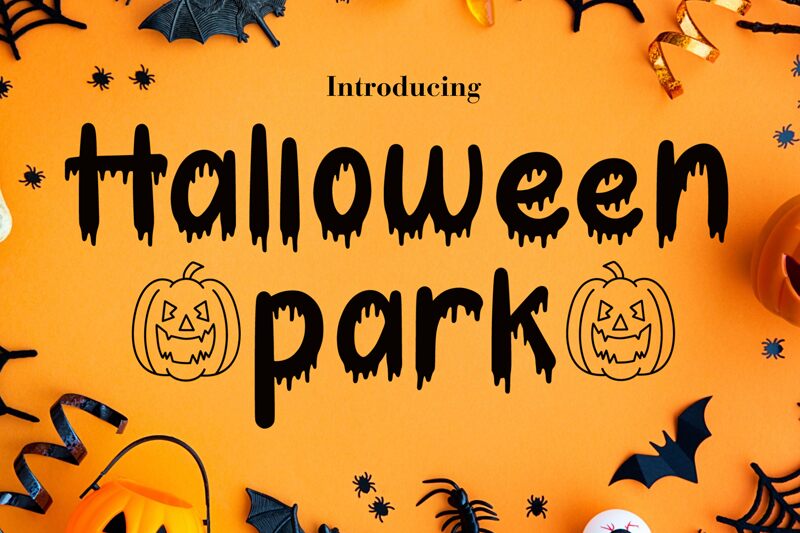
Halloween Park font by AEN Creative Studio is a free holiday font inspired by all things spooky. This decorative typeface was inspired by ghosts and horror-themed visuals typical of the Halloween season. It is informal, playful, and whimsical, allowing it to add that much-needed twist to otherwise plain letters.
The Halloween theme makes this font best suited for seasonal uses. Specially designed to elevate visuals with ease, this font is perfect for flyers, social media announcements, packaging, posters, and greeting cards. Utilize it in kids publications, lively apparel items, stickers, or as a website typeface.